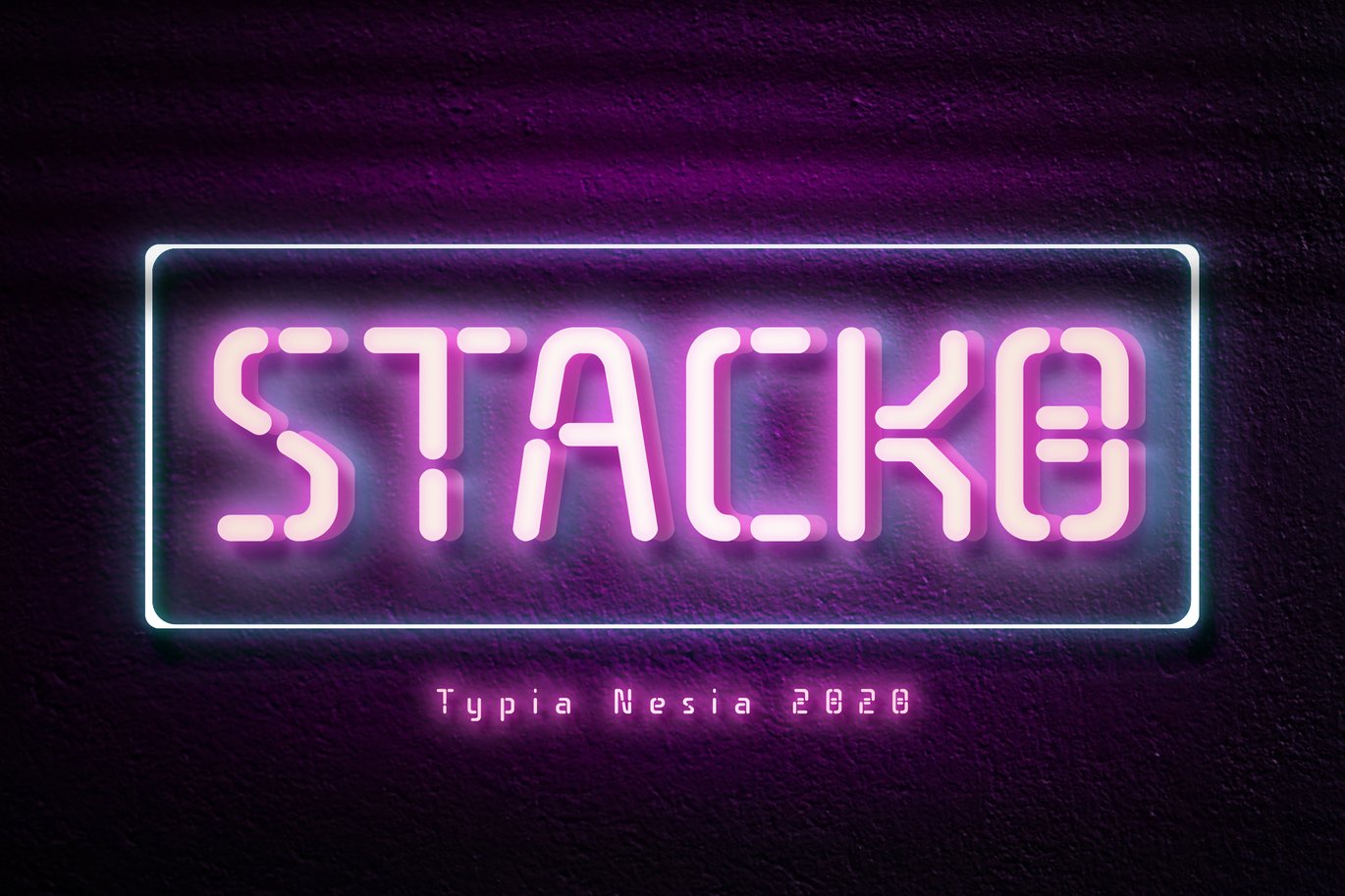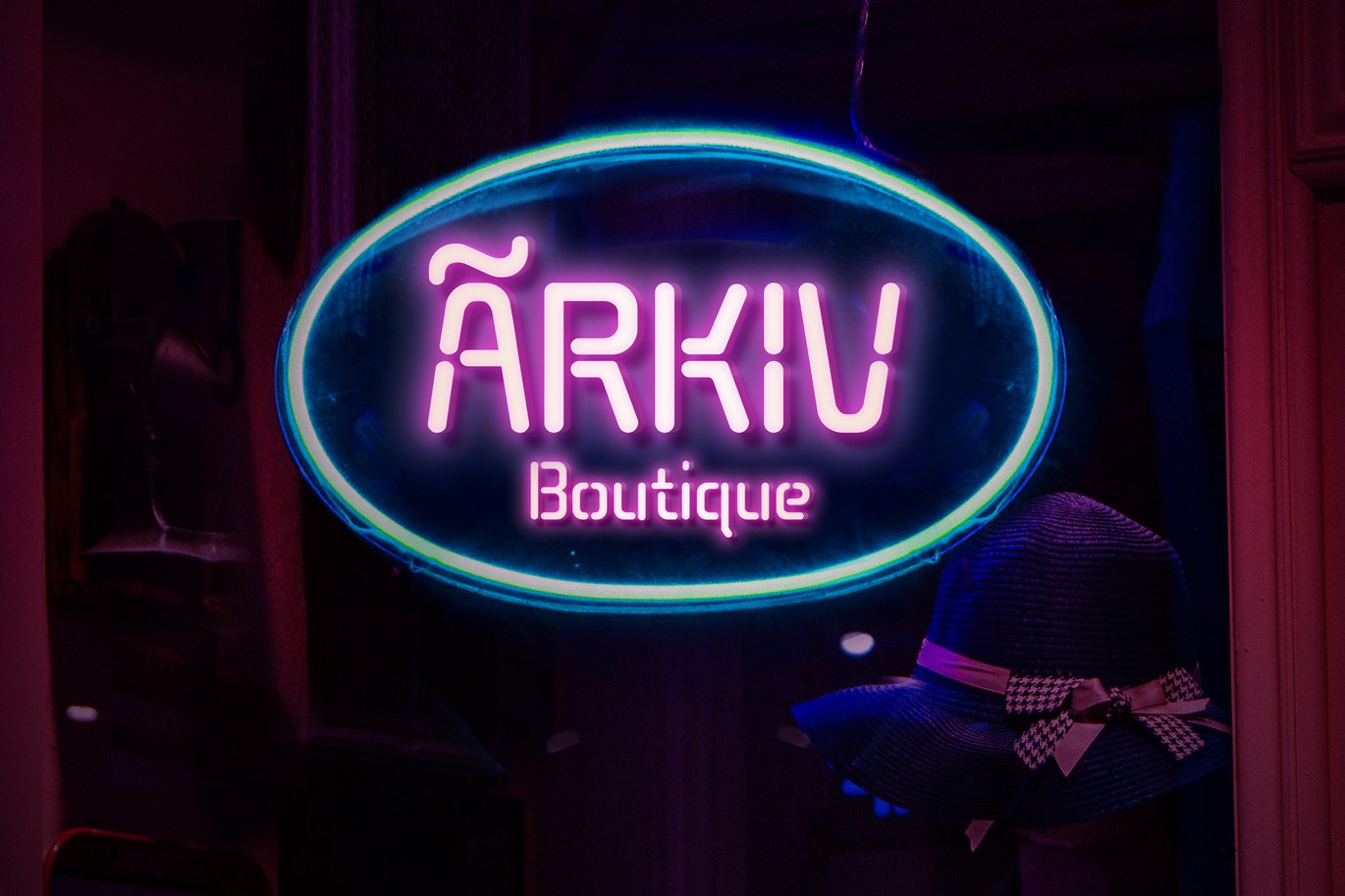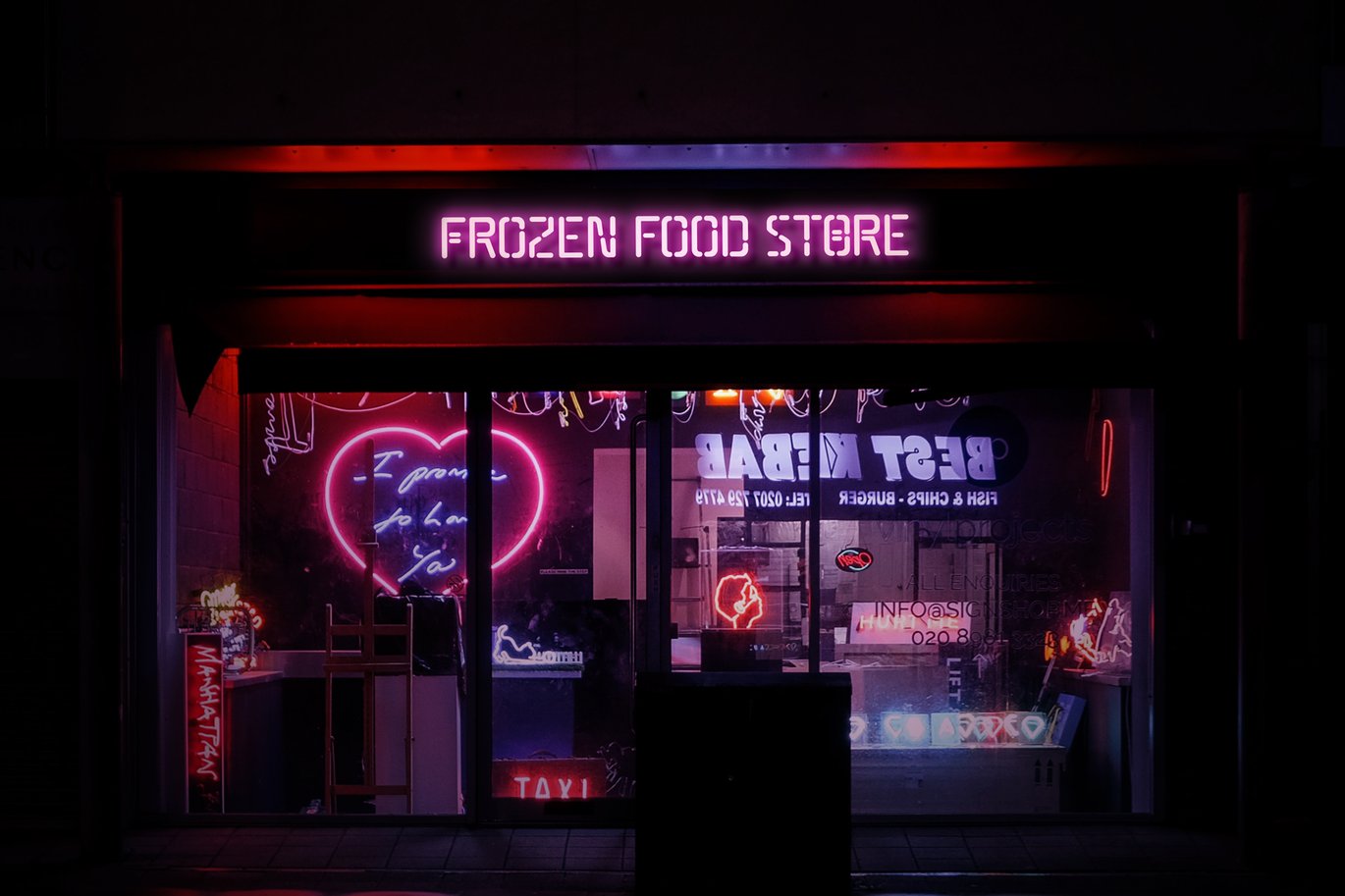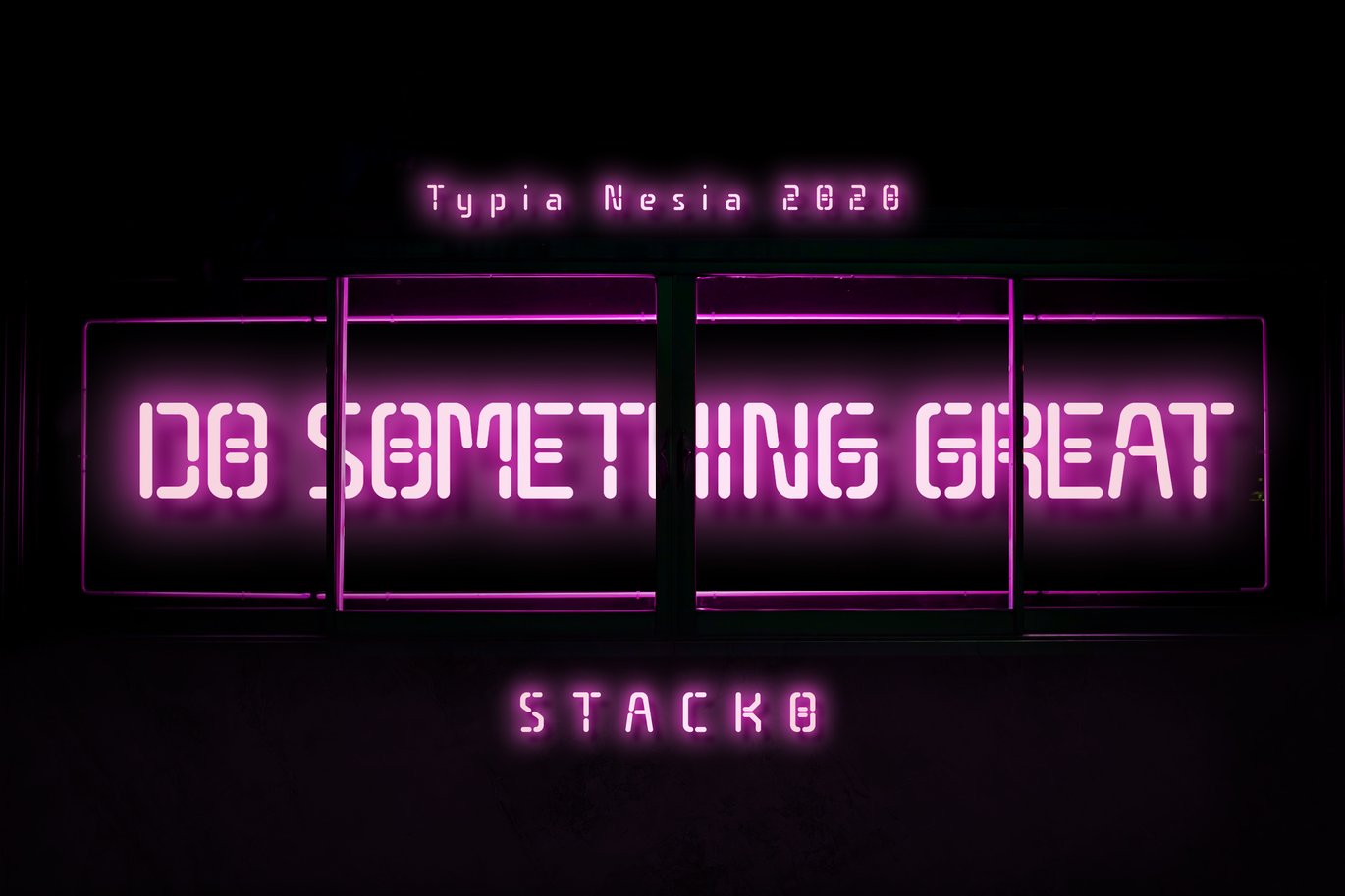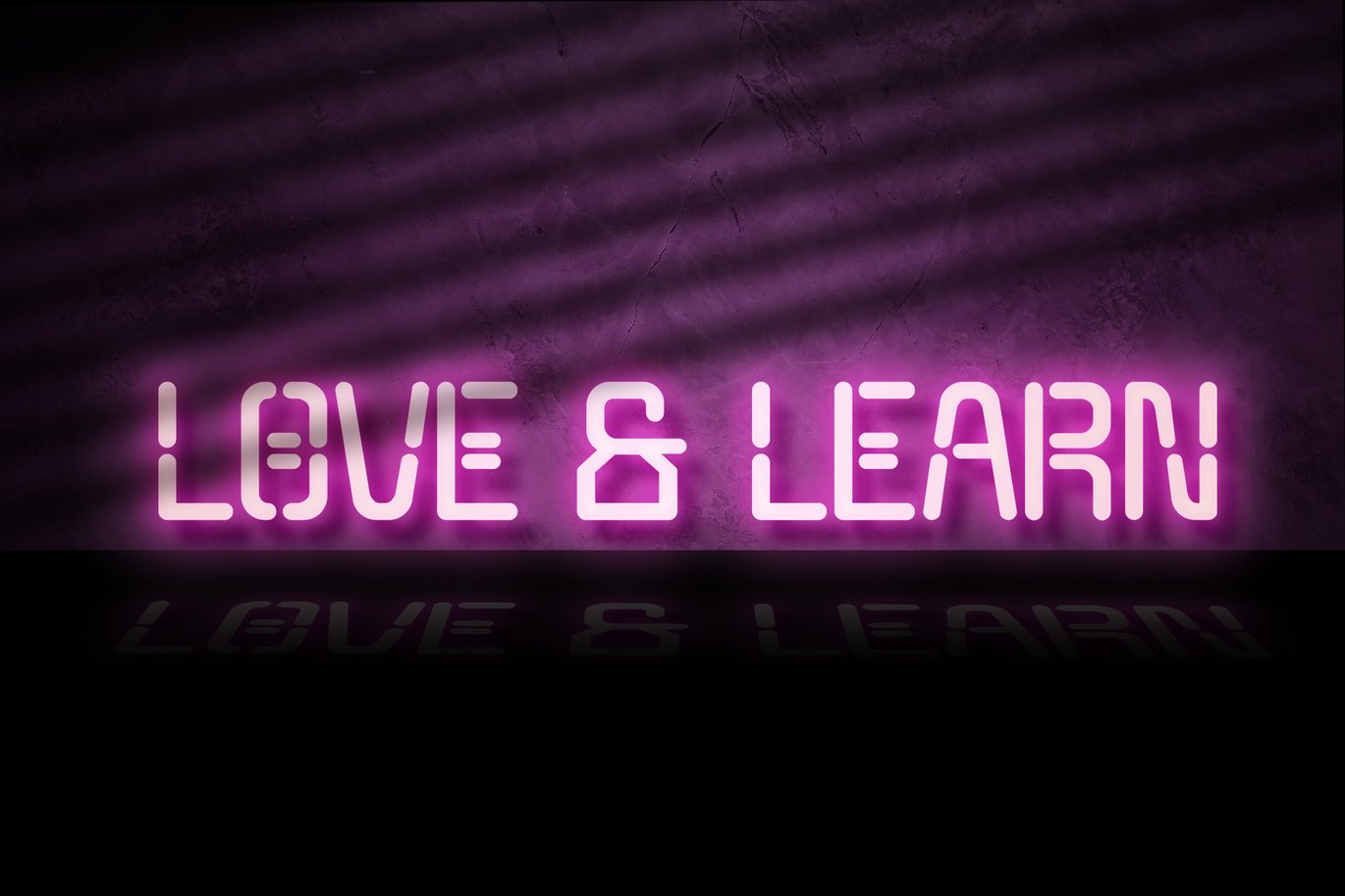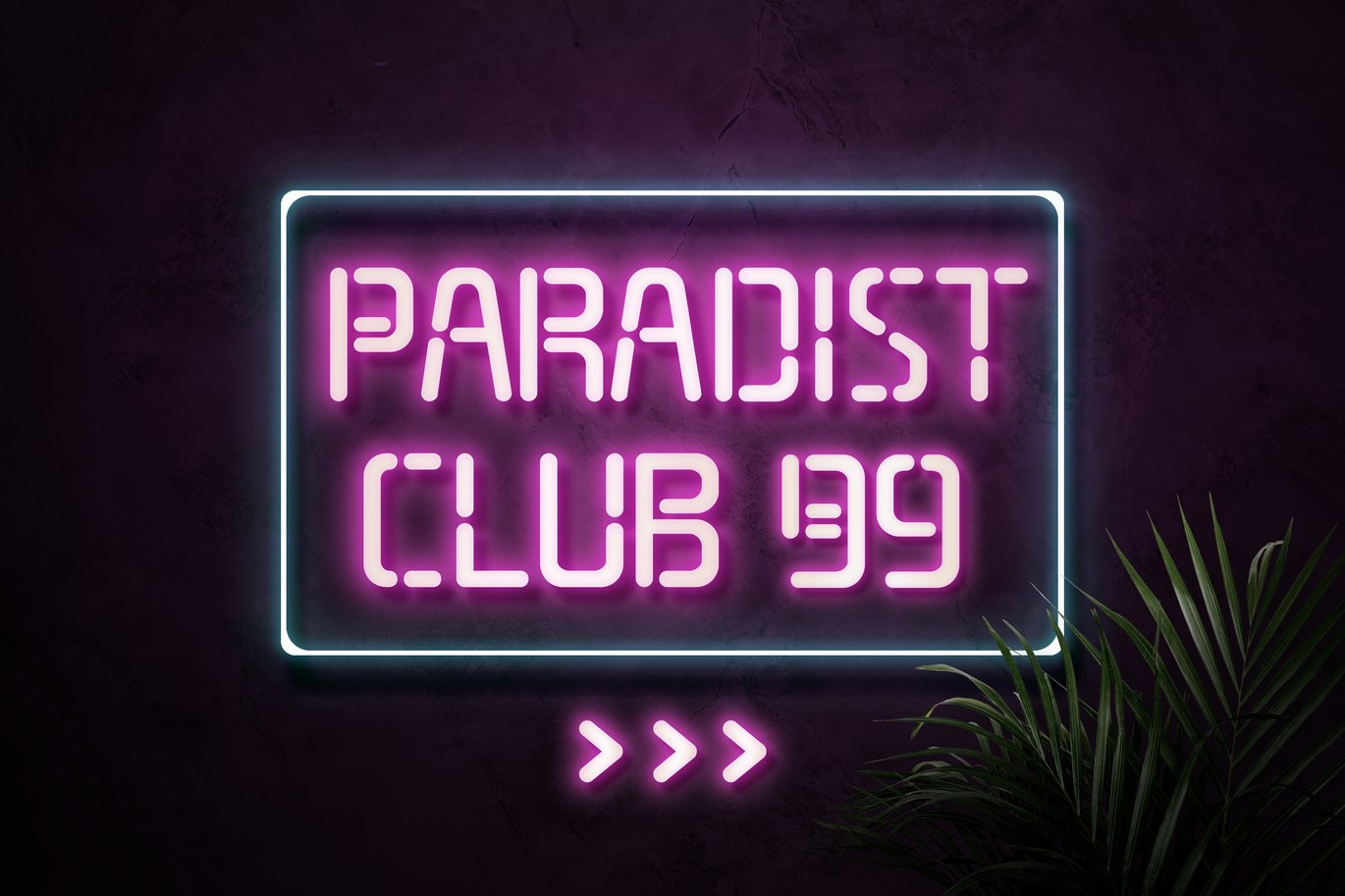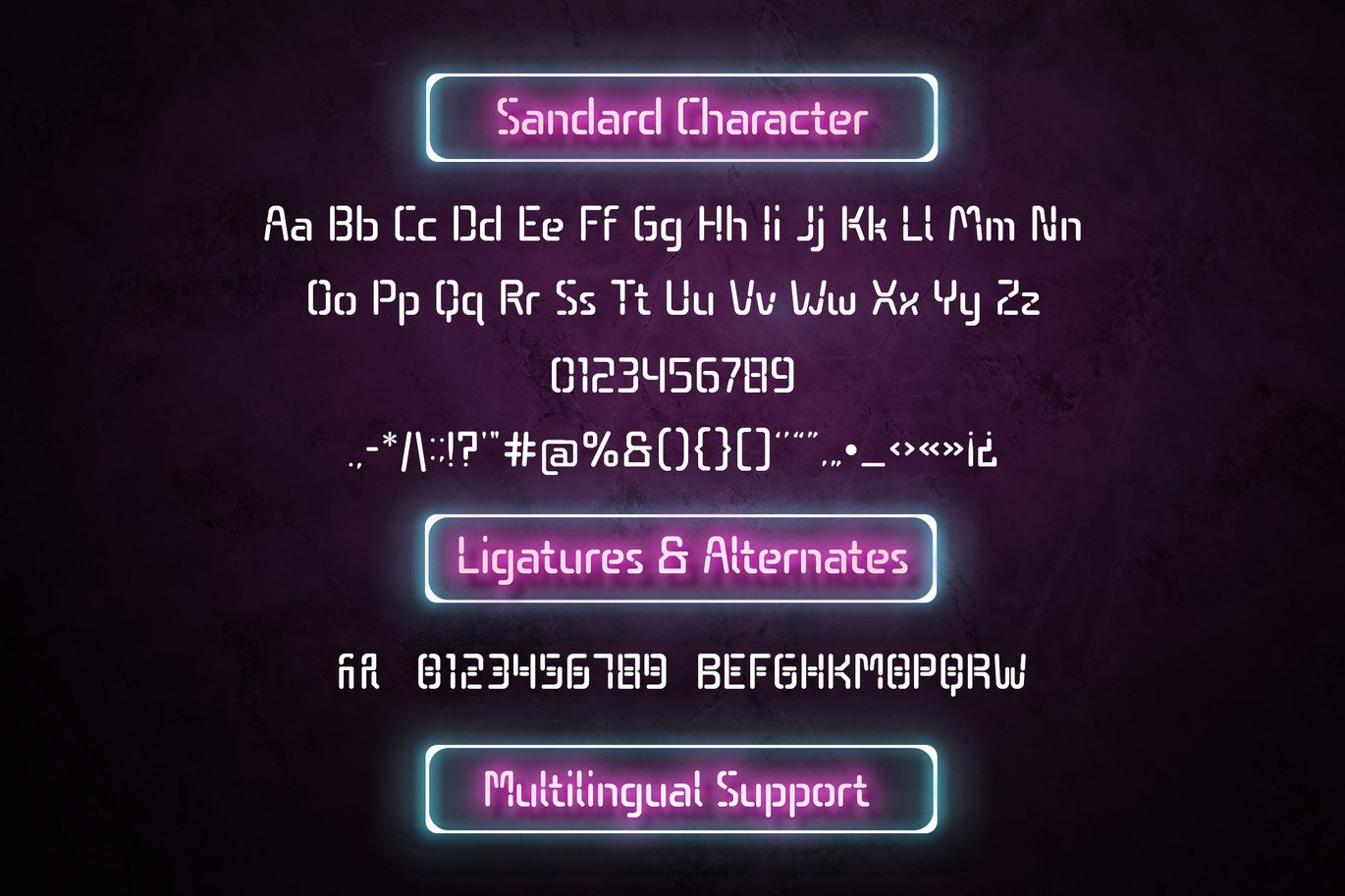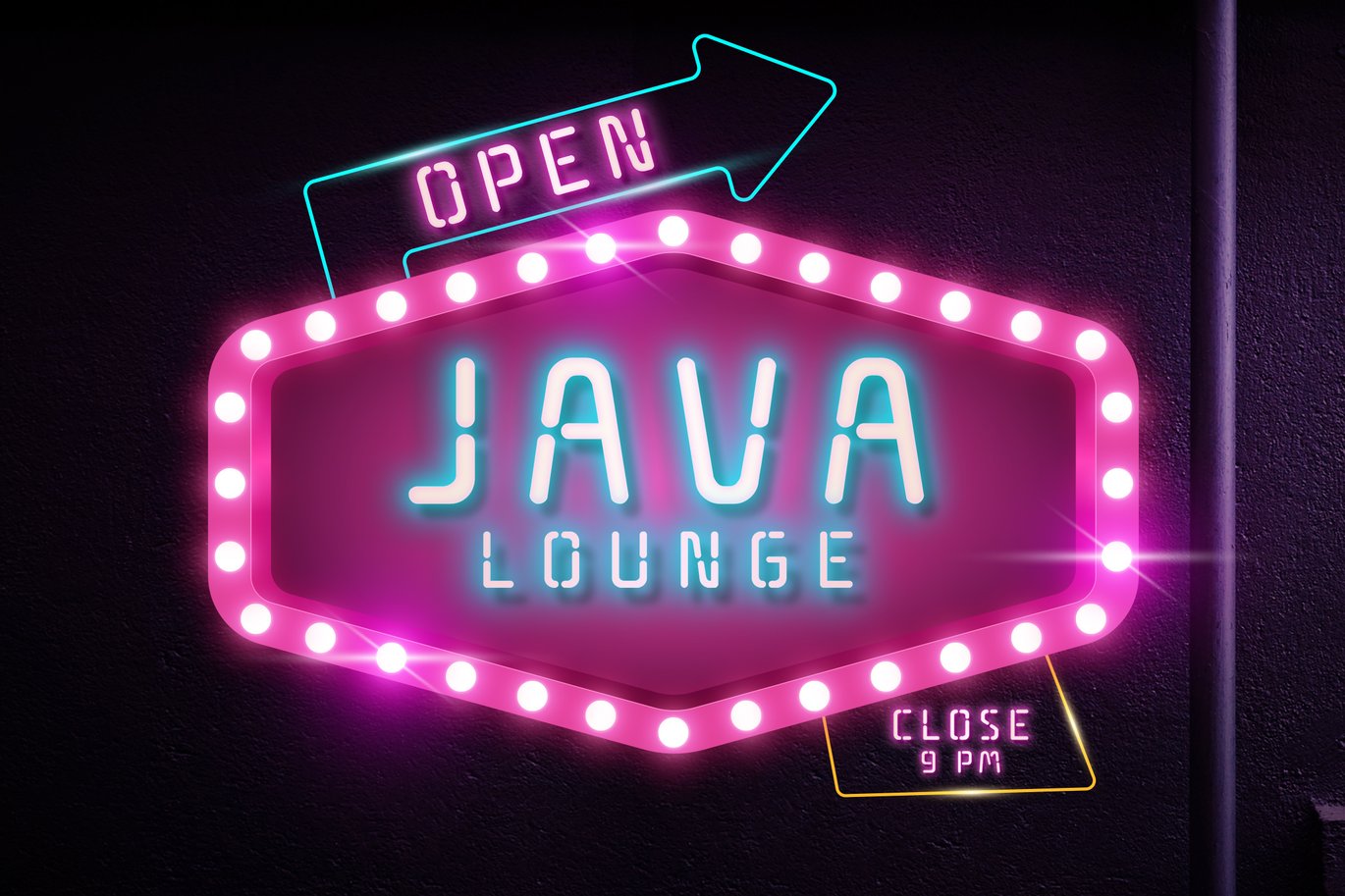
Stacko Neon Font
Stacko Neon Sign Display Font
Suitable for any design needs : logo, branding, modern advertising design, cartoon, animation, kid book, neon sign, logos, poster quote, book / cover Title, editorial design, website / blog, card, custom mug, pillow, t-shirts, and any hand-lettered needs.